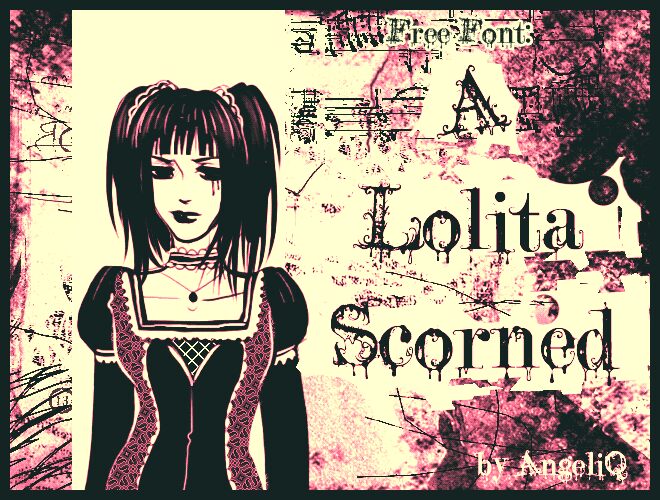
A Lolita Scorned
"A Lolita Scorned" is a captivating display font that exudes a chilling, gothic charm. Designed by Jovana Gaspar AngeliQ, this font masterfully blends elegant cursive strokes with ominous, jagged edges, creating a visually striking and unsettling aesthetic. The intricate, almost haunting, letterforms evoke a sense of darkness and mystery, making this font an ideal choice for horror-themed designs, book covers, and other projects that demand a bold, unsettling visual impact.
Versatile and attention-grabbing, "A Lolita Scorned" can be effectively employed in a variety of design settings, from movie posters and album art to haunted house branding and Halloween-inspired materials. Its unique character and haunting allure make it a captivating option for those seeking to convey a sense of gothic unease or a macabre, supernatural atmosphere.